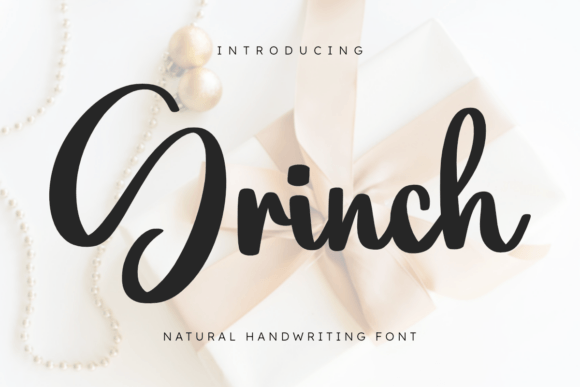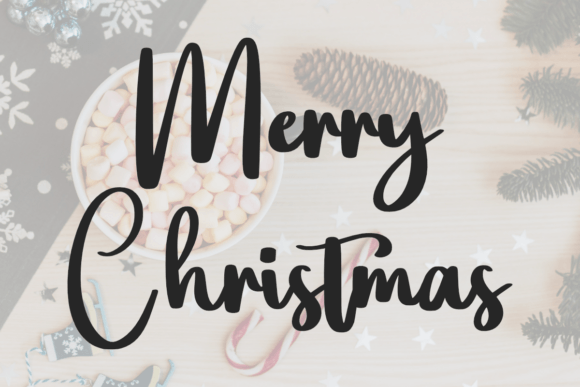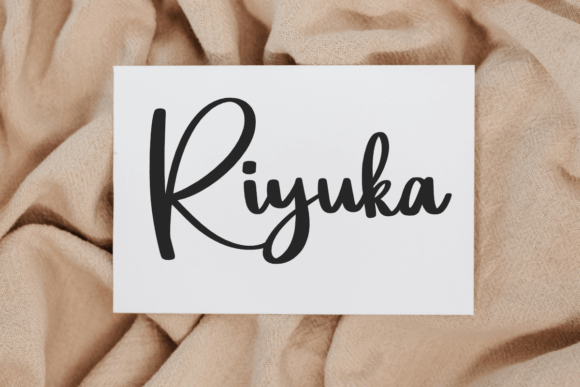
Grinch Font: Elegant Handwritten Script for Wedding & Logo Design
About the Grinch Font
Crafted with precision, the Grinch Font is ready to bring your ideas to life. Grinch is a sweet and cursive handwritten font. This gentle font will look gorgeous on a variety of design ideas. It will add a joyful and romantic touch to each of your projects! Perfectly fit for branding, logo, wedding things, greeting cards, fashion, lookbook, marketing promotion, and any time you want your design to look fancy and elegant but still casual.
Grinch’s playful yet elegant cursive style is ideal for headlines, short-form text on invitations or greeting cards, and branding projects needing a touch of whimsical sophistication. It excels in logo design and packaging for products targeting a feminine or romantic market. Avoid using it for body text or UI elements; its low x-height and cursive nature hinder readability in extended passages.
Pairing Grinch with a clean sans-serif like Montserrat for body text or a geometric sans-serif like Futura for a more modern feel creates effective contrast. For a more traditional look, consider pairing it with a classic serif such as Garamond. These pairings balance Grinch’s casual elegance with improved legibility where needed.
Grinch’s overall personality is best described as charmingly whimsical, lending itself to brands and projects that value a sense of delicate playfulness and romantic appeal.
Grinch Font Usage Examples
Grinch Font Example